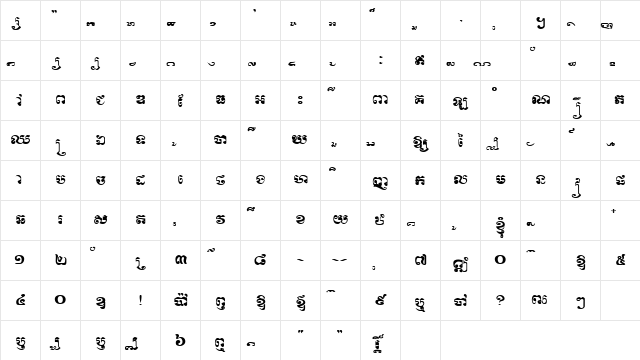
Khbachmool Regular
Design Context for Khbachmool Typeface
Khbachmool takes a measured approach to typography — its balanced proportions and neutral character make it a reliable workhorse for both digital and print work.